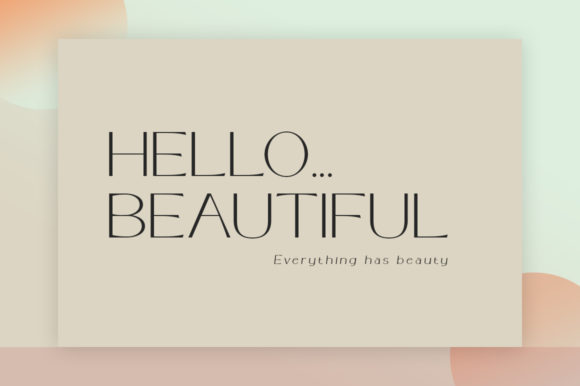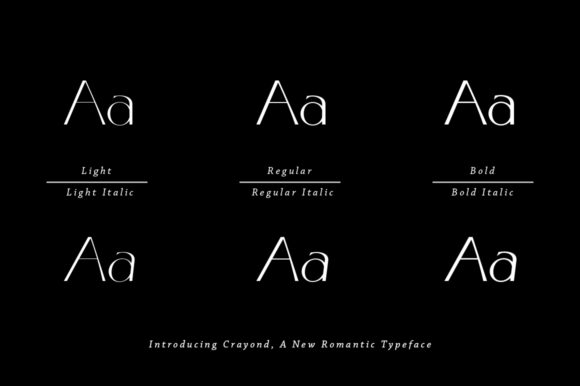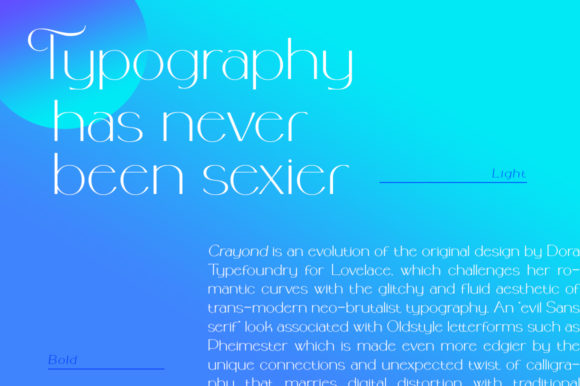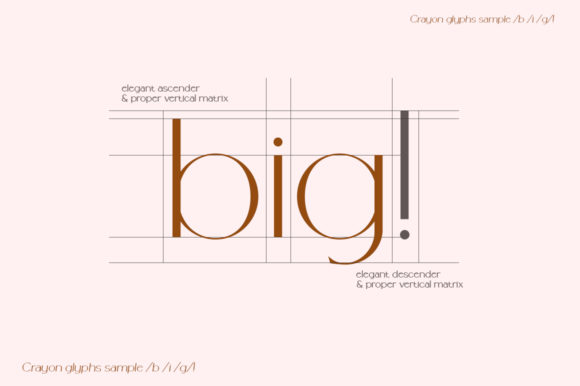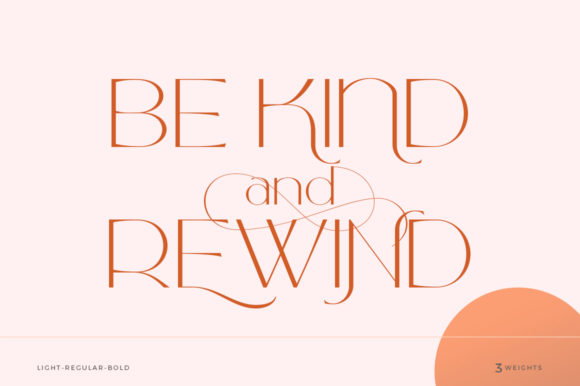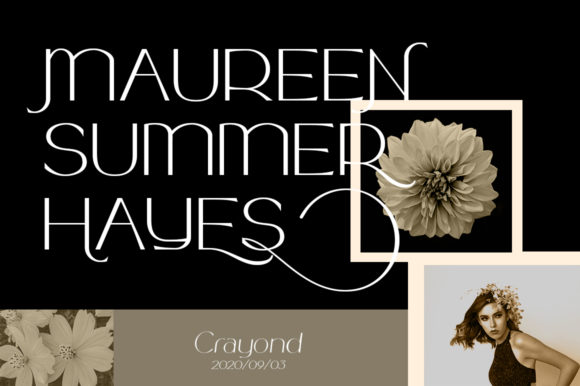
Crayond Font: The Ultimate Choice for Romantic and Delicate Designs
Are you a designer or crafter looking for a font that can add a touch of elegance and romance to your creations? Look no further than Crayond Font! This beautiful, round lettered sans serif font is sure to capture your heart with its unique and delicate style. In this article, we’ll dive into the world of Crayond Font and explore its features, benefits, and uses.
What is Crayond Font?
Crayond Font is a romantic, delicate, and round lettered sans serif font that is perfect for creating lovely designs. Its unique and elegant style makes it an ideal choice for designers and crafters who want to add a touch of sophistication to their work. Whether you’re creating a wedding invitation, a branding project, or a social media graphic, Crayond Font is sure to impress.
Features of Crayond Font
Crayond Font has several features that make it a standout choice for designers and crafters. Some of its key features include:
- Delicate and Round Letters: Crayond Font features delicate and round letters that are perfect for creating elegant and sophisticated designs.
- Sans Serif: The font is a sans serif font, which means it doesn’t have any decorative lines or flourishes at the ends of the letters.
- Unique and Elegant Style: Crayond Font has a unique and elegant style that sets it apart from other fonts.
- Romantic Feel: The font has a romantic feel that’s perfect for creating designs for special occasions like weddings and anniversaries.
Benefits of Using Crayond Font
There are several benefits to using Crayond Font in your designs. Some of the benefits include:
- Adds Elegance and Sophistication: Crayond Font adds a touch of elegance and sophistication to your designs, making them perfect for special occasions.
- Versatile: The font is versatile and can be used for a variety of design projects, from wedding invitations to branding projects.
- Easy to Read: Crayond Font is easy to read, even at small sizes, making it perfect for designs that require a lot of text.
- Unique: The font is unique and stands out from other fonts, making your designs more memorable.
Uses of Crayond Font
Crayond Font can be used for a variety of design projects, including:
- Wedding Invitations: The font is perfect for creating beautiful and elegant wedding invitations.
- Branding Projects: Crayond Font can be used for branding projects, such as logos and business cards.
- Social Media Graphics: The font is great for creating social media graphics, such as Facebook posts and Instagram stories.
- Stationery: Crayond Font can be used for creating stationery, such as notebooks and journals.
Tips for Using Crayond Font
Here are some tips for using Crayond Font in your designs:
- Use it for Headings: Crayond Font is perfect for headings and titles, as it adds a touch of elegance and sophistication.
- Pair it with Other Fonts: The font can be paired with other fonts to create a unique and interesting design.
- Experiment with Colors: Crayond Font looks great in a variety of colors, so don’t be afraid to experiment and find the perfect color for your design.
- Use it for Special Occasions: The font is perfect for special occasions, such as weddings and anniversaries.
Crayond Font is a beautiful and elegant font that’s perfect for designers and crafters who want to add a touch of romance and sophistication to their designs. With its delicate and round letters, sans serif style, and unique and elegant style, Crayond Font is sure to impress. Whether you’re creating a wedding invitation, a branding project, or a social media graphic, Crayond Font is a great choice. So why not give it a try and see how it can elevate your designs?